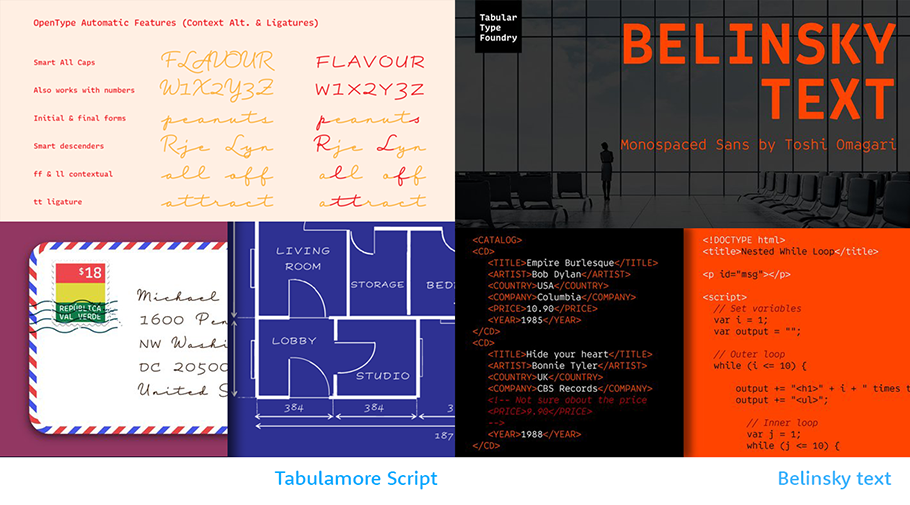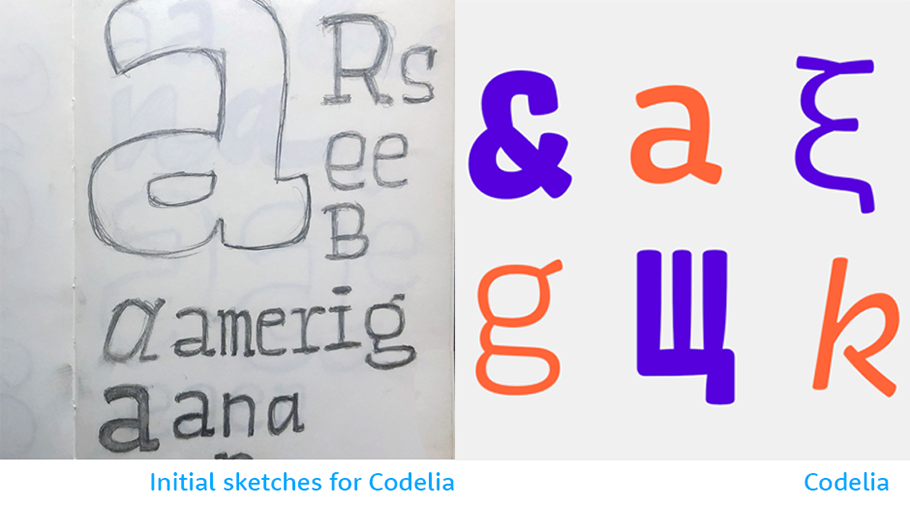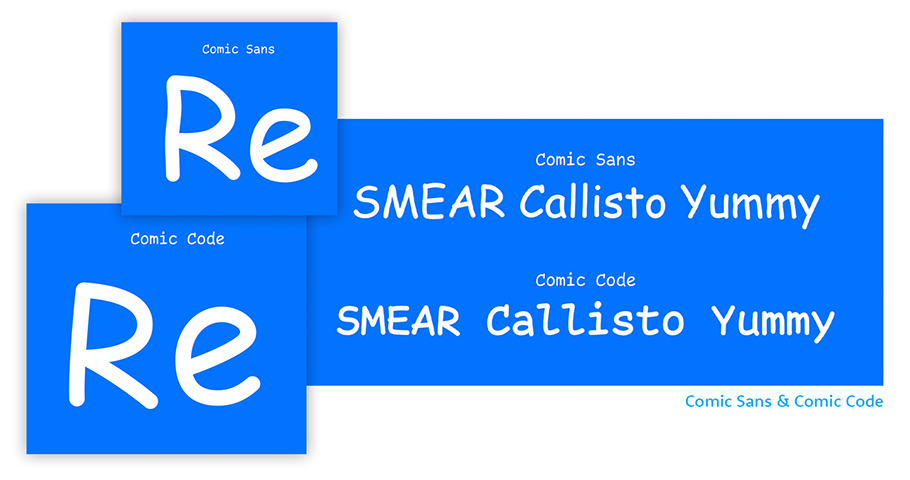
Creative Characters: Up and coming — Toshi Omagari
I always want to make a typeface that challenges traditional notions in typography.
Japanese typographer, Toshi Omagari, 37, enjoys using the research skills he honed in adulthood to become an expert at what he loved growing up in 1990’s Fukuoka, Japan: video arcade games. Today, he’s more excited by arcade game typefaces than their plots. Recently, he became so fascinated by the look of fonts used by Nintendo, Super Nintendo, and others, that he penned Arcade Game Typography: The Art of Pixel Type, a book released shortly before the pandemic.
Since then, he’s left his longtime designing job for Monotype to become a freelancer in London, not far from where he earned his master’s degree in the University of Reading’s typography program. Currently, he’s developing what he calls, “totally original fonts,” but he won’t elaborate, saying of the burgeoning work, “Maybe it’s not at a stage where you can necessarily articulate what you’re making.”
To date, Toshi’s library of typefaces includes Codelia (a punny reference to Shakespeare’s “Hamlet”) and Comic Code. In a recent Zoom interview with Monotype, we discussed both fonts, as well as his love of challenges and diverse and casual type. Our conversation has been condensed for space.
MyFonts: Your display text for your typefaces shows your sense of humor. Here, I’m thinking of your sample text for Codelia, “Python, and be silent,” as well as for Comic Code, “Coding with pyjamas on.” Did you ever think of becoming a writer?
Toshi Omagari: No, I don’t enjoy writing! I ended up writing a book about typefaces, but that took a LOT of time. In creating funny display text for Codelia and Comic Code, I wanted to say, “Hey, these typefaces aren’t really serious.”
MF: What do you mean by “not serious”?
TO: I always want to make a typeface that challenges something in type design, like the “serious” idea that MS Comic Sans is bad. I want people to accept and enjoy Comic Sans — and challenge traditional notions in typography.”
MF: Why might Comic Sans be considered bad?
TO: It’s made to be used in a low-resolution screen of less than 1,000 pixels, so it’s best suited to school and home settings. But because it’s in Windows, everybody uses it, even though Microsoft Office is more of an adult program. But I don’t think there’s bad typeface, there’s only bad typography, or bad uses of typefaces.
MF: I guess I’m still not clear on why Comic Sans is “bad.”
TO: To some, it may look too casual, too childish. The spacing of the characters is very irregular — straight, not straight; round, not round. If you think about Comic Sans like handwritten shapes, the writer has absolutely no control; like a child learning to write.
MF: Anything else you’d like to challenge?
TO: Well, because I design lots of scripts that I’m not native to (I’m Japanese, yet I don’t design Japanese ideographs) but instead things like Latin, Tibetan, Mongolian, Arabic, I’m always keen to push multi-culture, multi-script design. When designers discuss typography, it sometimes makes me laugh, because most mean Latin typography (employing the 26-letter alphabet beginning with ABC), but they skip the “Latin” prefix. When I hear things like this I say, “You’re talking about Latin! You should say Latin!”
MF: Do you think most are aware that they’re designing in Latin?
TO: Not unless they design in other scripts. Typography exists in basically every culture. But if you attend conferences or presentations and people say, “This is the way you should approach typography,” that might not apply to Middle Eastern typography or Japanese typography. I think we should be more specific.
Typography exists in basically every culture, but people say, “This is the way you should approach typography,” that might not apply to Middle Eastern typography or Japanese typography.
MF: What made you decide against designing in Japanese ideographs?
TO: If you open a Japanese font, or Chinese or Korean font, their character counts are in the tens of thousands. When you’re talking about a Latin font, that’s easily in the hundreds. You can assume that designing in CJK (Chinese, Japanese and Korean) probably takes at least 10 or 100 times longer.
MF: Are the characters more complex?
TO: It’s more like every word in the dictionary exists as one character representing a concept or a thing, rather than word sounds. A smiley face emoji, for example, is an ideograph.
MF: Do you have a favorite font?
TO: From my own typefaces? It depends on when you ask. If you ask me tomorrow, you might get a different answer.
MF: Tonight at 10 pm in London, which font of yours are you feeling most fond of?
TO: Codelia, because of what I believe about programming. Codelia’s a really, soft, casual typeface, made for programming. Code’s in the name. And code —machine-like rows of characters — looks scary to many people. I want to change that.
MF: What do you hope to do in the future?
TO: Make a typeface that supports my life? I don’t know. Make a big hit? Why not!